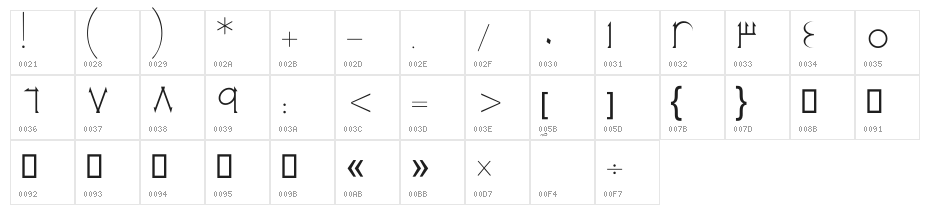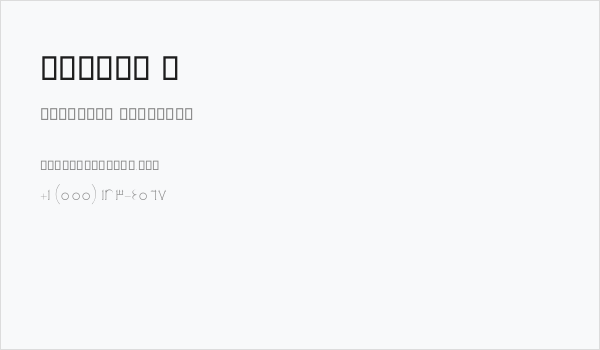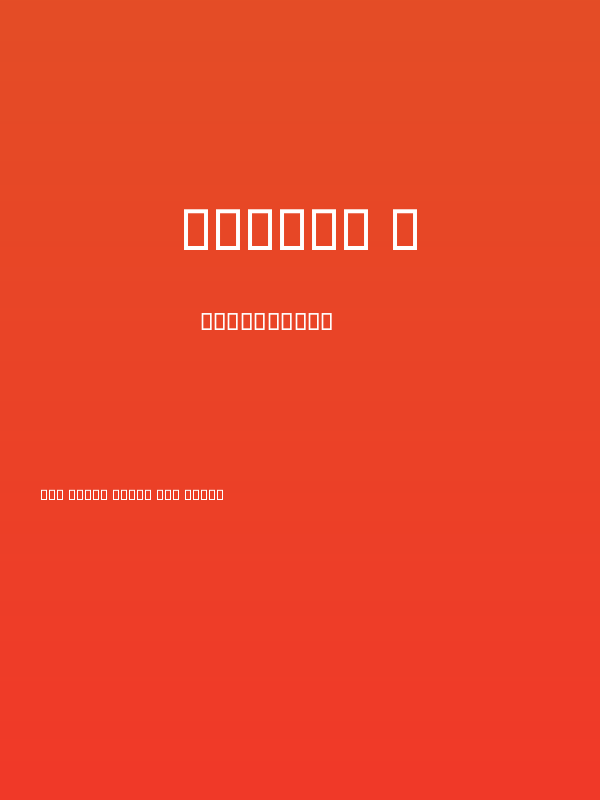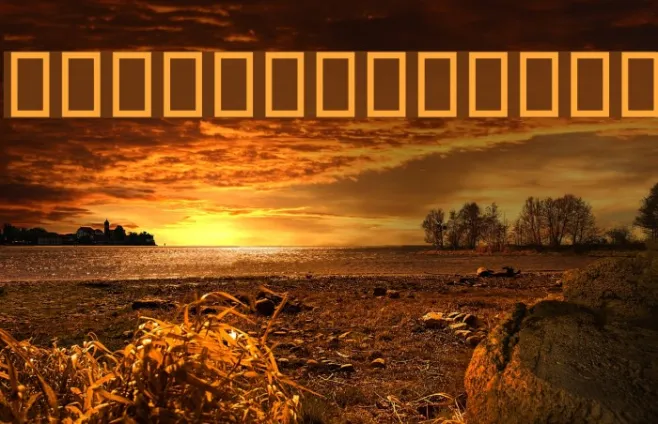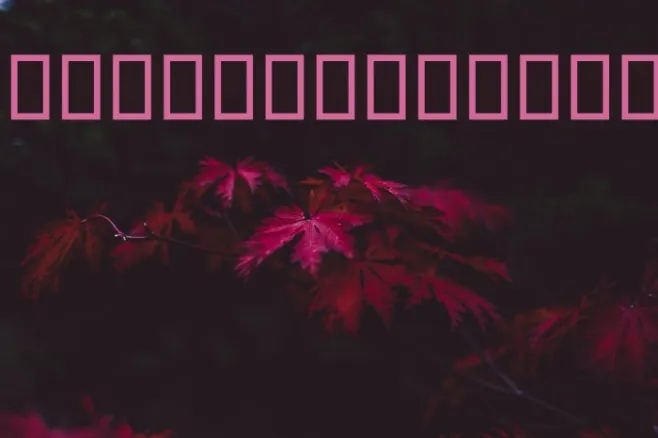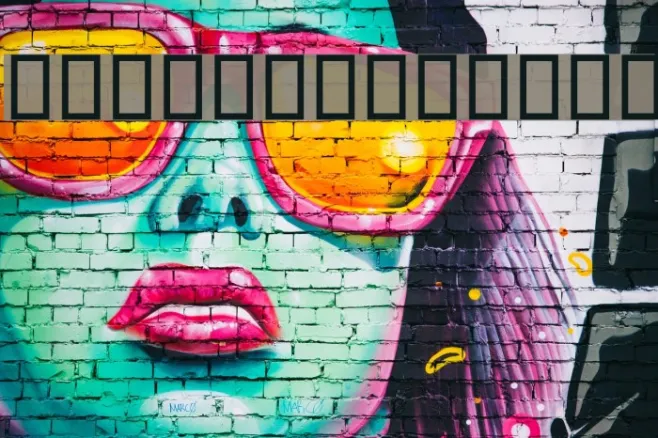
Future I Font
Future I Description
This font features a futuristic and angular design, characterized by sharp edges and geometric forms. The letters have a unique, almost alien-like appearance, with some characters incorporating unexpected curves and angles that give them a distinct, avant-garde feel. The numerals and special characters maintain this theme, offering a cohesive and visually striking set. The font's style is highly decorative, making it suitable for projects that require a modern and unconventional aesthetic.
| Overall Style | Futuristic, Avant-garde |
| Proposed Projects | Ideal for sci-fi themed designs, video game interfaces, movie posters, and branding for tech companies. |